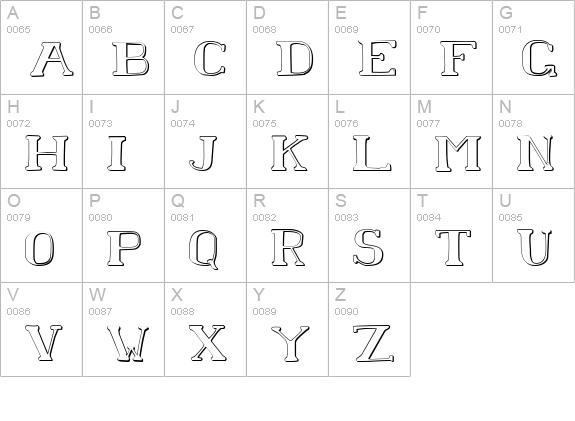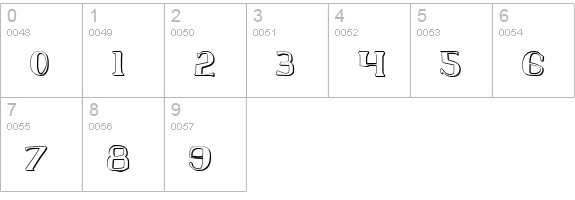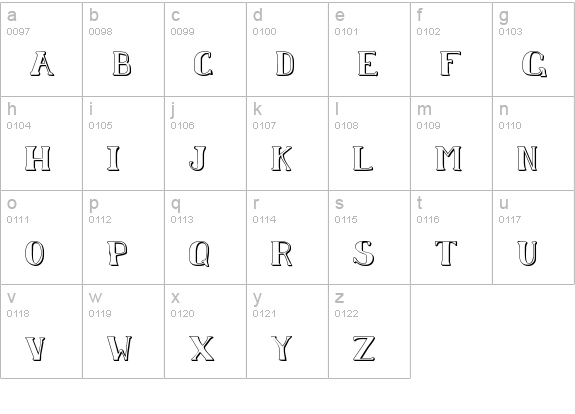
Chardin Doihle Shadow font is a stunning display typeface that exudes elegance and sophistication. With its intricate details and unique shadow effect, this font is perfect for creating eye-catching designs that demand attention. The graceful curves and sharp edges of Chardin Doihle Shadow add a touch of modernity to any project, making it a versatile choice for both print and digital applications. What's even better is that Chardin Doihle Shadow font is available for free download at FontsMarket.com. This means you can easily add this exquisite font to your collection without any cost, allowing you to explore its creative possibilities without any limitations. Whether you're designing invitations, posters, logos, or any other project, Chardin Doihle Shadow font is sure to elevate your work to new heights. Download it today and see the magic it brings to your designs!